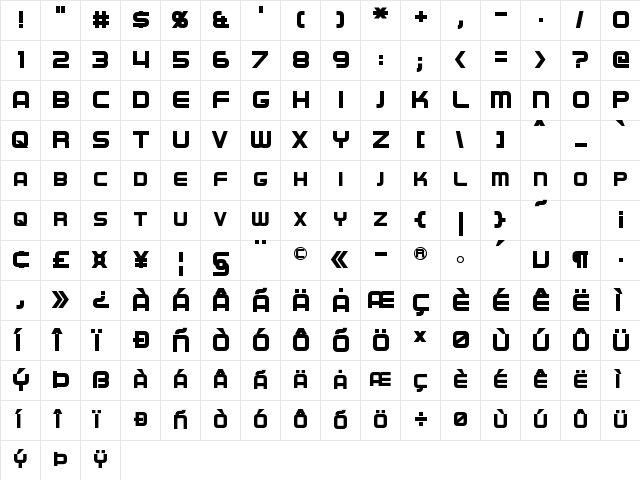
Regen Bold
| Foundry | Pixel Sagas |
| Designer | Neale Davidson |
Design Context for Regen Typeface
Regen offers clean, dependable letterforms without strong stylistic allegiance, making it a practical choice for designers who need flexibility. Its bold stroke weight gives it real presence on the page.